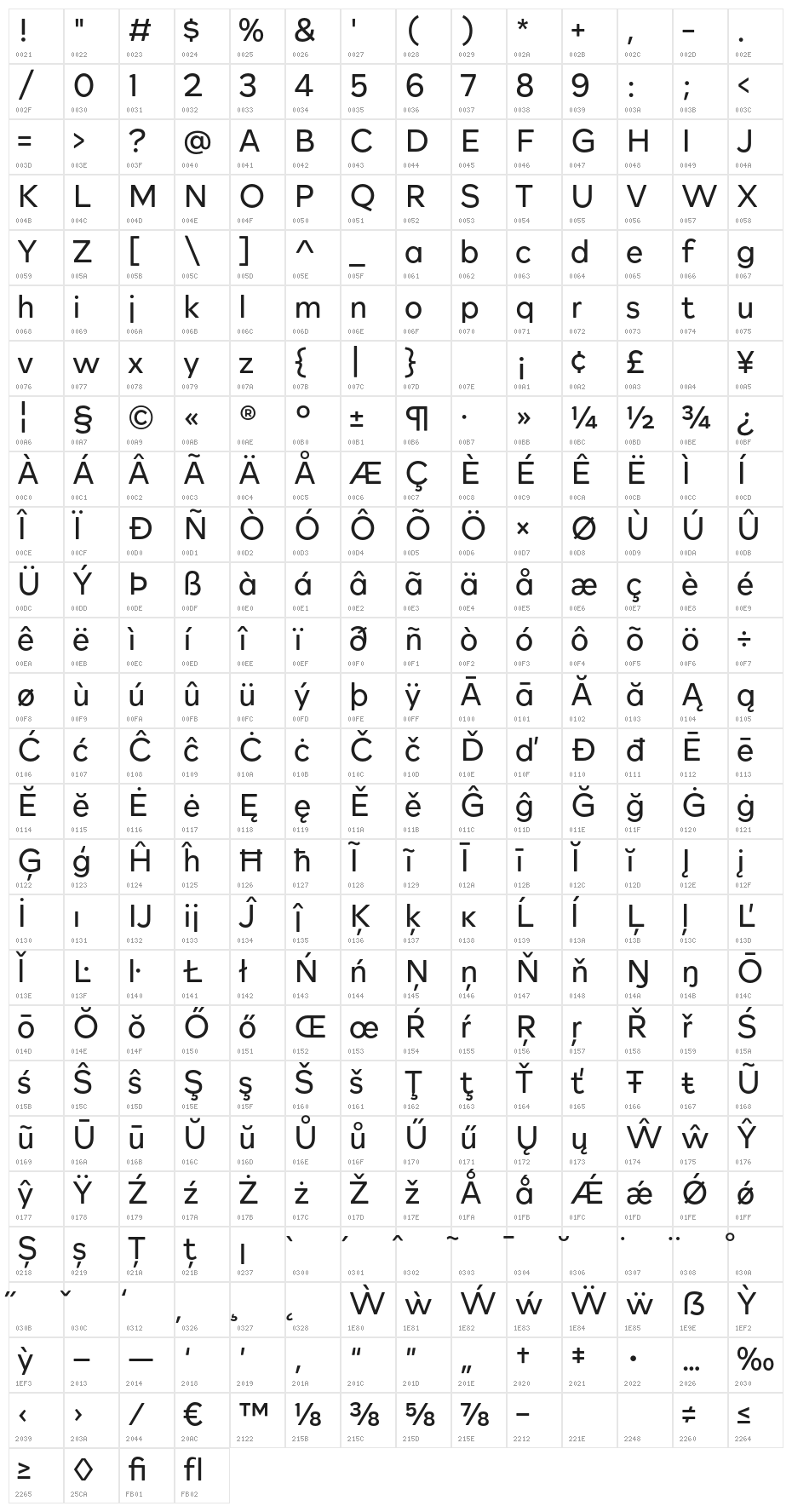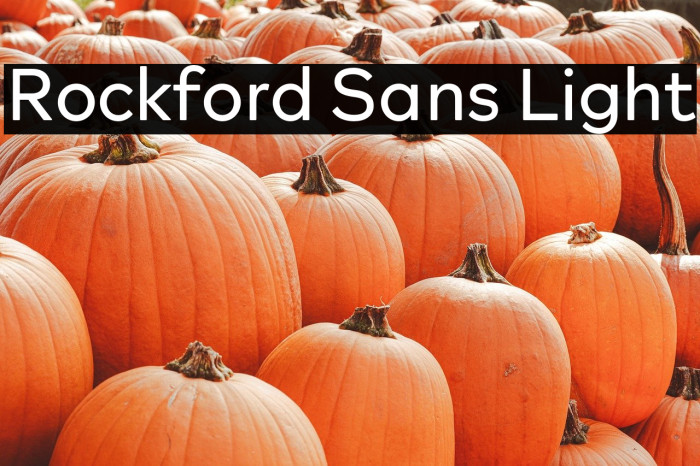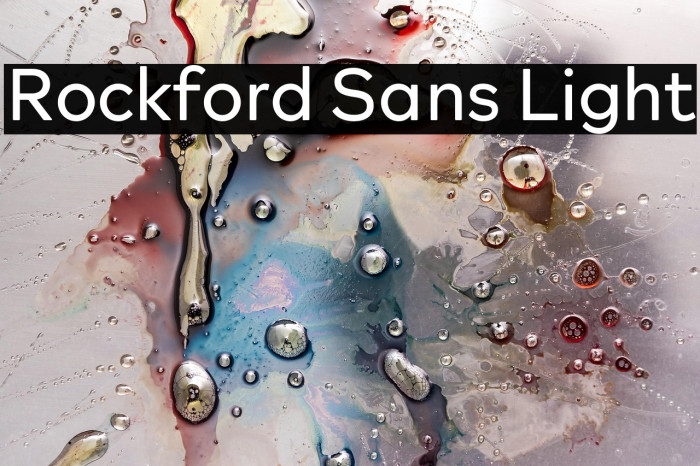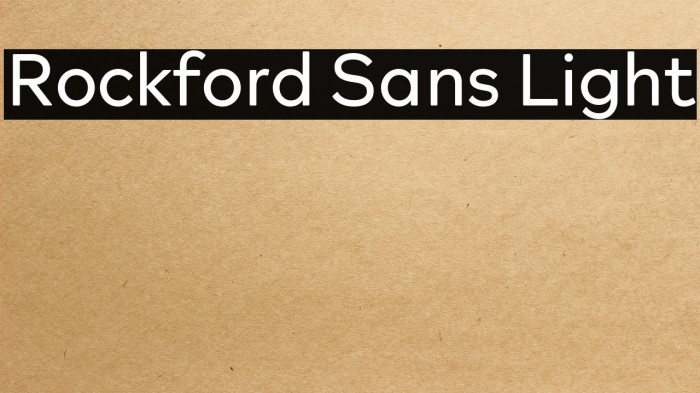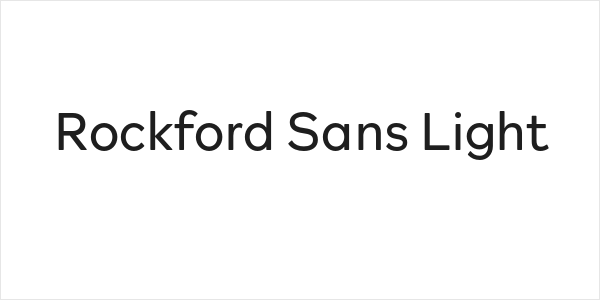
Rockford Sans Light Font
Rockford Sans Light Description
This font features a clean and modern sans-serif design, characterized by its simplicity and readability. The letters are evenly spaced with a consistent stroke width, giving it a balanced and harmonious appearance. The uppercase and lowercase letters are well-proportioned, making it suitable for a variety of applications. The numerals are clear and distinct, ensuring legibility in both print and digital formats. The special characters are designed to complement the overall style, maintaining the font's sleek and contemporary look.
| Proposed Projects | Ideal for branding, web design, corporate materials, and editorial content. |